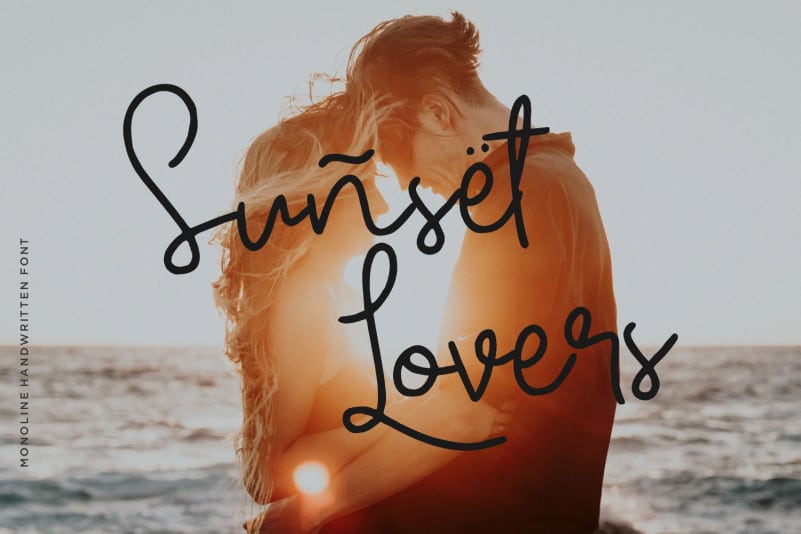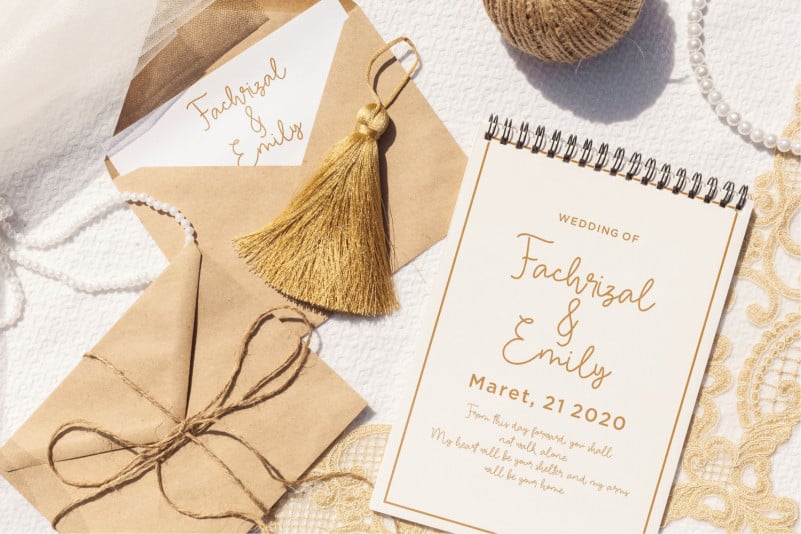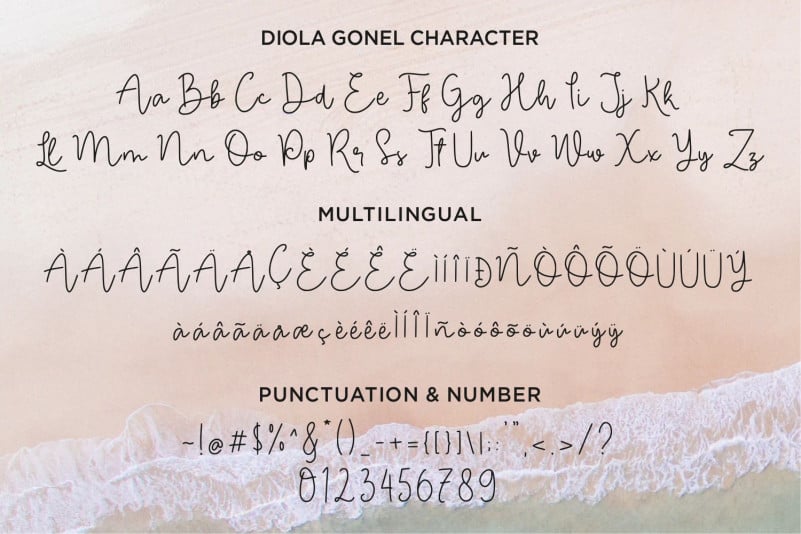
Diola Gonel Handwritten Font
Diola Gonel Handwritten Font is a Monoline Handwritten Font. Diola Gonel is perfect for product packaging, branding project, megazine, social media, wedding, or just used to express words above the background.
Allouse.Studio